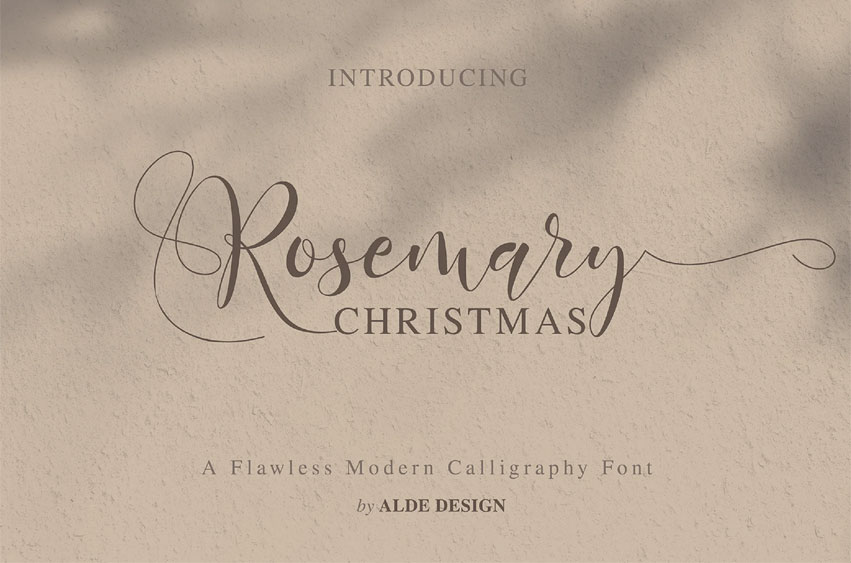
Rosemary Christmas Font
Rosemary Christmas Font is a delicate, elegant, and flowing handwritten font. It is a stylish calligraphy font that features a varying baseline, smooth lines, modern, and with a depth of love. For those of you who need a touch of love and modernity for your designs or branding, it can be used for various purposes such as headings, weddings, invitations, signatures, logos, branding, t-shirts, letterhead, signage, labels, news, posters, badges, etc.
It has beautiful and well-balanced characters, and as a result, it matches a wide pool of designs. Rosemary Christmas features a varying baseline, smooth lines, gorgeous glyphs, and stunning alternates. Add it to your most creative ideas and notice how it makes them come alive!
• Stylish modern handwritten script
• Beautiful Swash (Ending tail)
• Beautiful Titling (Beginning tail)
• Special Ligatures & Alternates